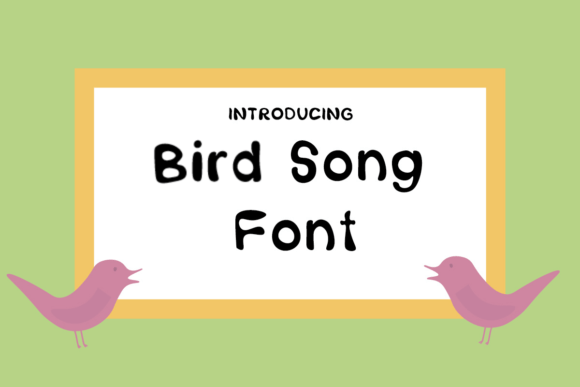
The Sweet Serenade of Bird Song Font: A Designer’s Delight
I’ll never forget the time I was working on a whimsical branding project for a children’s play area. I had all the colors, illustrations, and graphics lined up, but something was missing – the perfect font. That’s when I stumbled upon Bird Song, a fun and friendly handwritten font that instantly captured the playful essence of the brand. In this article, I’ll share my love for Bird Song, its unique features, and how you can make the most of it in your designs.
• ✅ Unique, hand-crafted feel that adds a personal touch to any design
• ✅ Extensive character set, including OpenType features and glyphs
• ✅ Works beautifully for both digital and print designs
• ⚠️ Some letters may appear a bit irregular or imperfect, which can be charming but might not suit every design style
• ⚠️ Limited availability of condensed or italic versions, which might limit its use in certain typographic contexts
3. Experiment with OpenType features like ligatures and stylistic alternates to add visual interest
Exploring Alternatives: Similar Fonts to Bird Song
If you’re looking for more fonts with a similar vibe, consider these alternatives:
• Karla: A modern, geometric sans-serif with a friendly feel. Use it for designs that require a clean, approachable look.
• Pacifico: A beautiful, elegant script font perfect for more sophisticated designs. It’s great for headlines and titles.
• Great Vibes: A fun, handwritten font with a carefree spirit. It’s ideal for designs that need a playful touch.
• Lobster: A classic, elegant script font with a sophisticated feel. Use it for formal designs or to add a touch of luxury.
The Story Behind Bird Song: A Designer’s Inspiration
Imagine a designer who spent countless hours traveling, collecting postcards, and admiring the handwriting of strangers. This designer, inspired by the beauty of handwritten letters, decided to create a font that captures the essence of bird songs – carefree, whimsical, and full of life. And so, Bird Song was born, a font that embodies the joy of handwritten communication.
Q: What makes Bird Song font unique?
A: Bird Song’s uniqueness lies in its hand-crafted feel, extensive character set, and OpenType features that give it a distinctive, whimsical charm.
Q: Does Bird Song support multiple languages?
A: Yes, Bird Song has an extensive character set that supports multiple languages, making it a versatile choice for global designs.